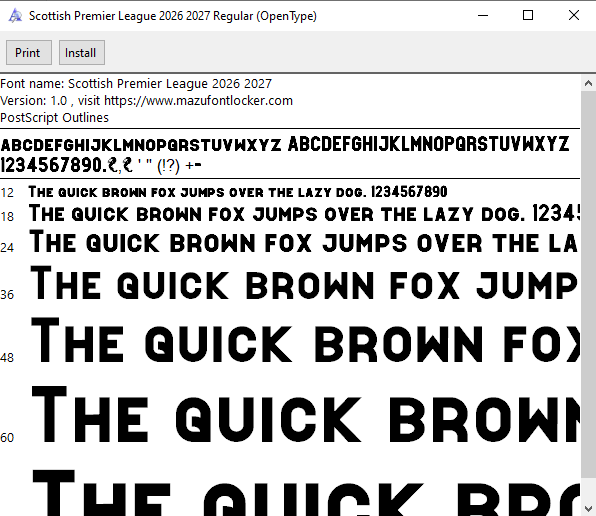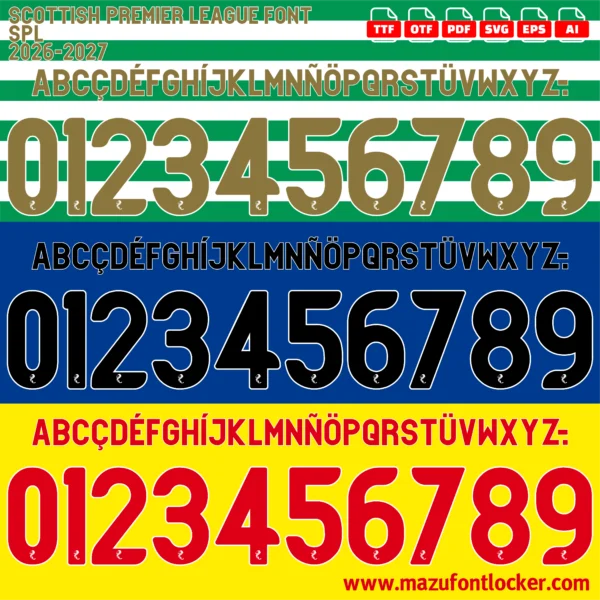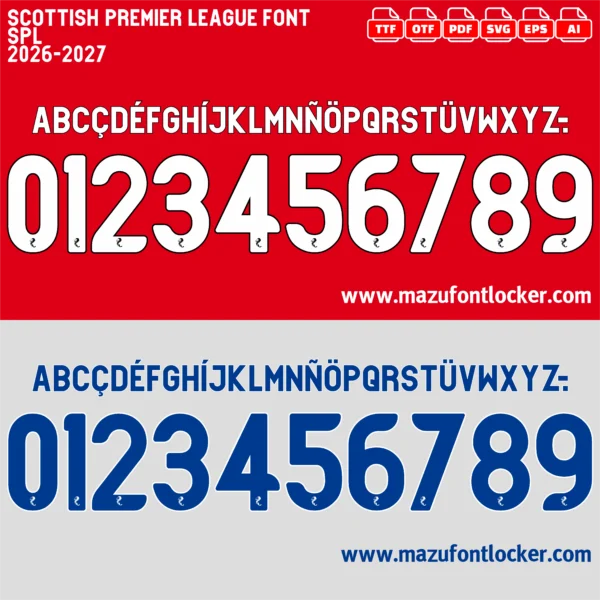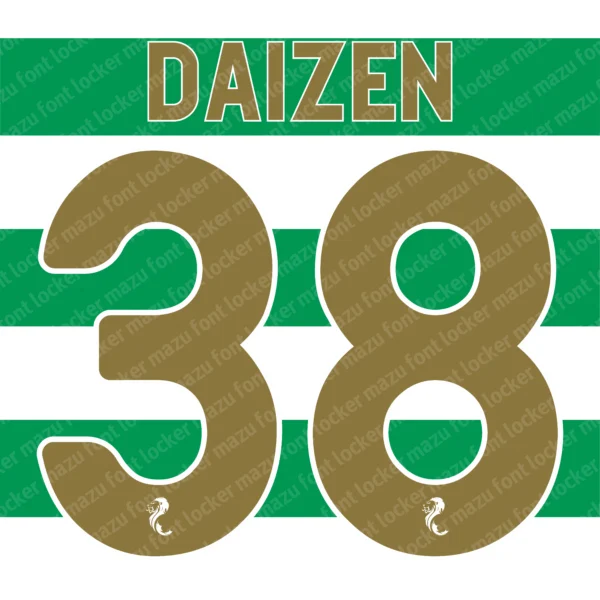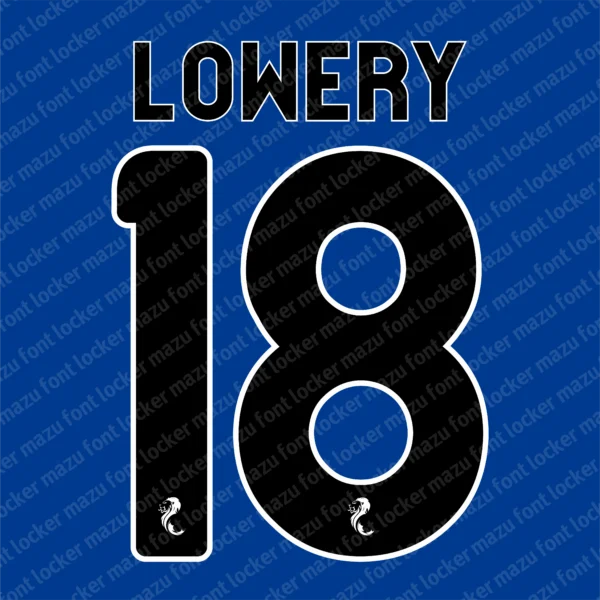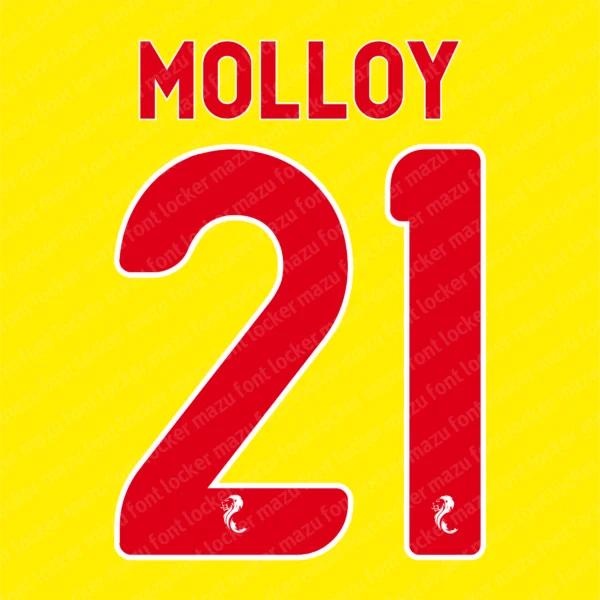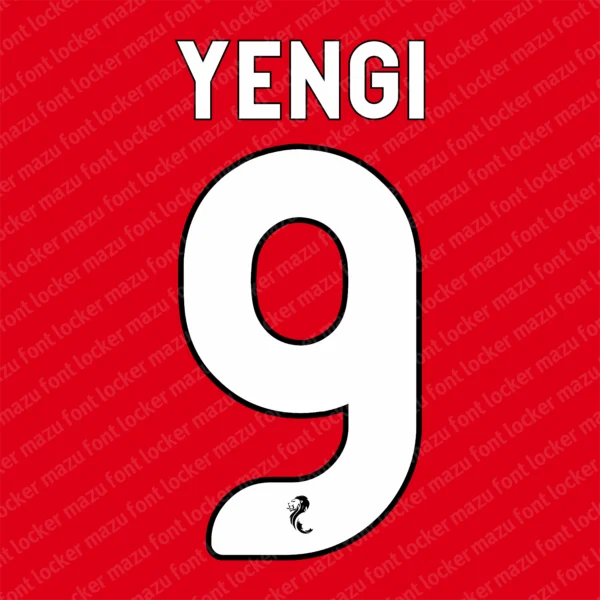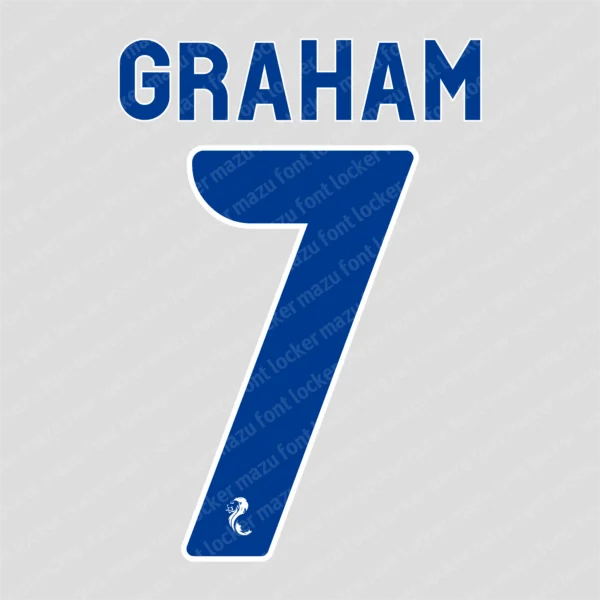
Scottish Premier League 2026-2027 Font Vector – Legendary SPFL Old Firm Icon
This font captures the bold, fearless, electric, and ultra-premium lettering that perfectly embodies the Scottish Premier League’s iconic Scottish heritage fused with the ruthless, passionate, and unstoppable spirit of the Premiership — delivering unmatched intensity, raw emotion, elite craftsmanship, and pure Tartan fire for premium jersey mockups, epic football designs, spectacular sports visuals, standout fan creations, and professional branding projects.
Scottish Premier League 2026-2027 Font Vector – Authentic Premiership Typeface
The Scottish Premier League 2026-2027 Font Vector is a premium typeface that accurately recreates the official match lettering used across the Scottish Premiership during the exciting 2026-2027 season. This high-quality vector font kit captures the bold, dynamic, and distinctive typography that reflects the passion, competitiveness, and rich football heritage of Scottish football.
Designed for professional designers and passionate fans of the Scottish game, the Scottish Premier League 2026-2027 Font Vector delivers perfect authenticity for creating realistic jersey mockups, fan merchandise, matchday posters, social media graphics, and classic football content. It pairs beautifully with the iconic kits from clubs across the league.
Why Choose Scottish Premier League 2026-2027 Font Vector
This font stands out because of its sharp vector precision and strong league identity. Every letter and number is crafted to match the exact style used on the players’ shirts during the anticipated 2026-2027 campaign. Whether you are creating professional kit templates or celebrating the best of Scottish football, the Scottish Premier League 2026-2027 Font Vector delivers an authentic match-ready appearance.
The letterforms in the Scottish Premier League 2026-2027 Font Vector are bold, clean, and highly readable. The characters feature balanced proportions and sharp detailing that create a professional appearance on both home and away jerseys while maintaining the passionate football aesthetic of the 2026-2027 season.
The numerals feature strong geometric construction with excellent visibility and balance. Every number is carefully vectorized to ensure flawless scaling across digital graphics, print projects, and jersey applications.
• Full uppercase A–Z and numbers 0–9 in authentic Scottish Premier League 2026-2027 style
• Includes authentic styling inspired by official 2026-2027 season match shirts across the league
A mix of world-class stars, rising talents, and passionate local players helped create thrilling matches and lasting memories for fans across Scotland and beyond. The campaign further strengthened the league’s reputation as a major force in European football.
The Scottish Premier League 2026-2027 Font Vector is an independently designed typeface package. It is carefully crafted to replicate the official shirt lettering style used during the 2026-2027 season. This font kit is ideal for football-themed creative projects, fan artwork, jersey concepts, and professional sports graphics.